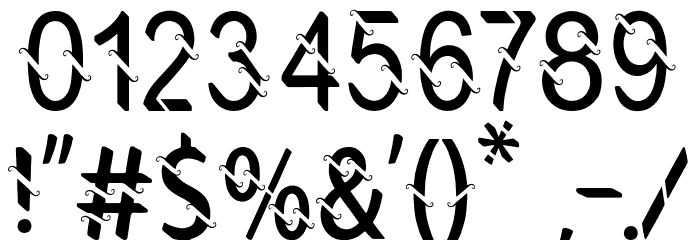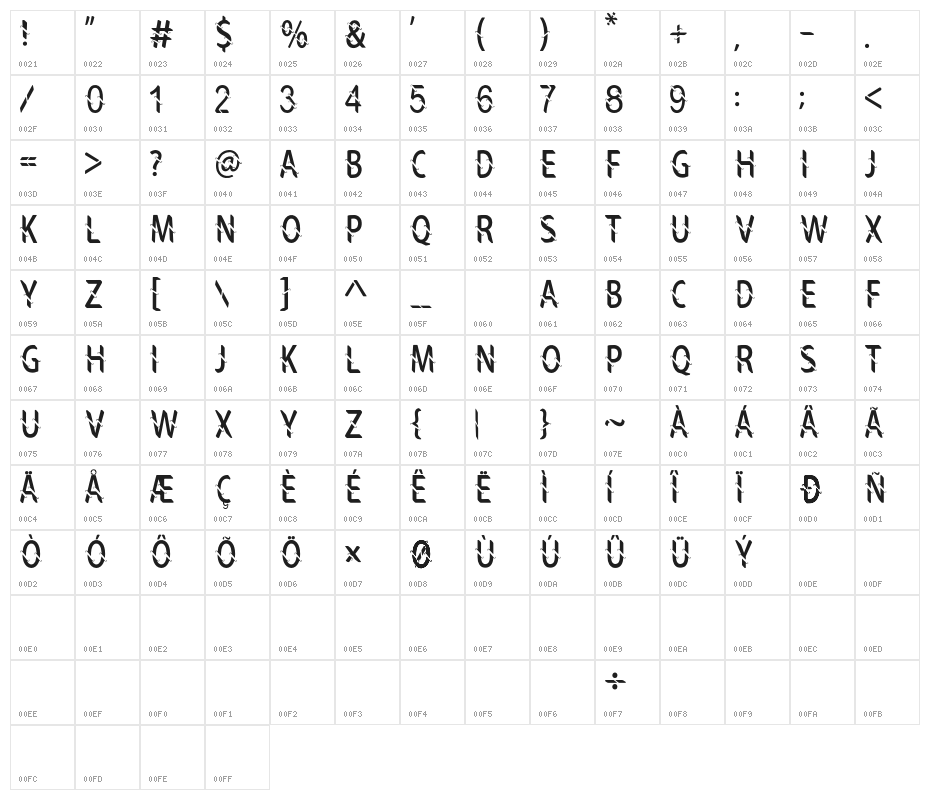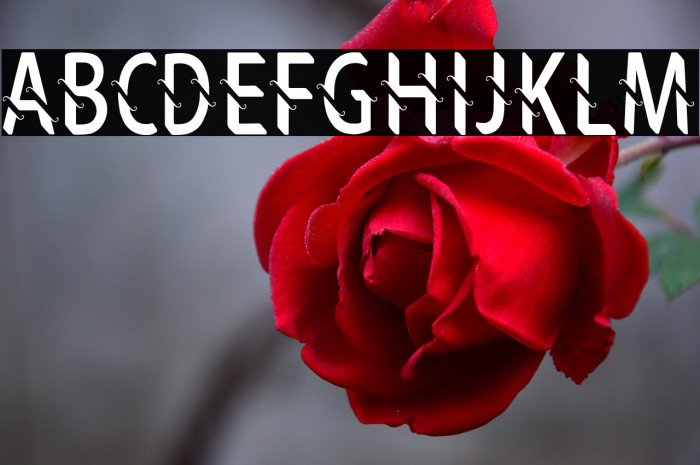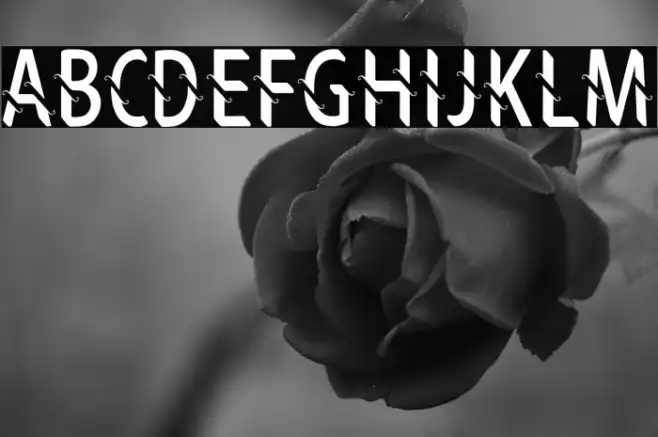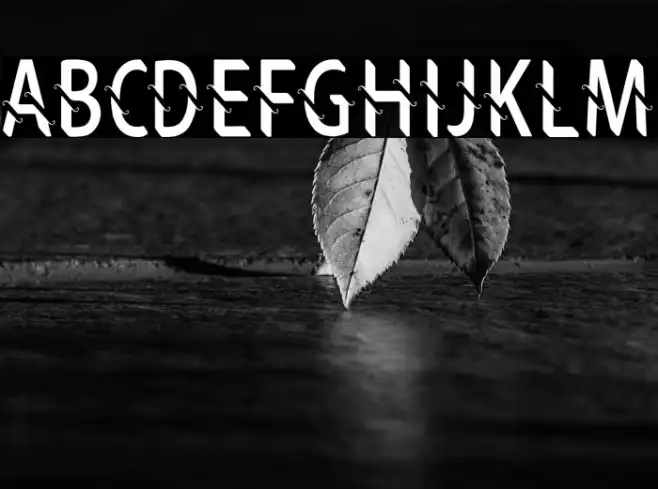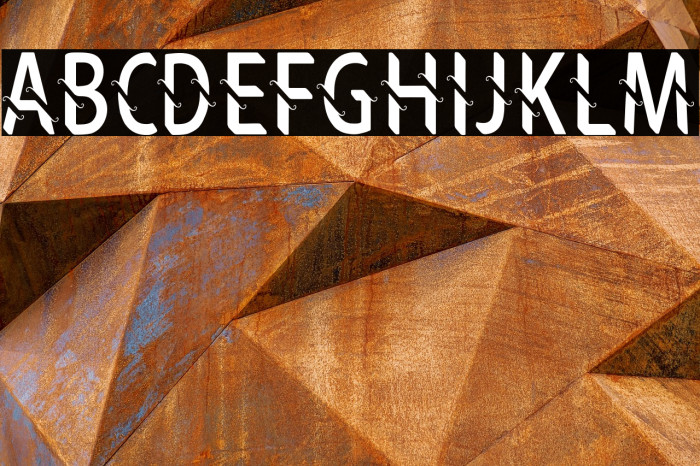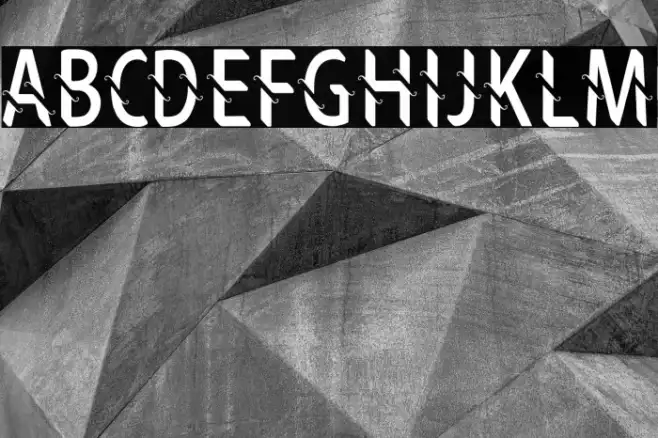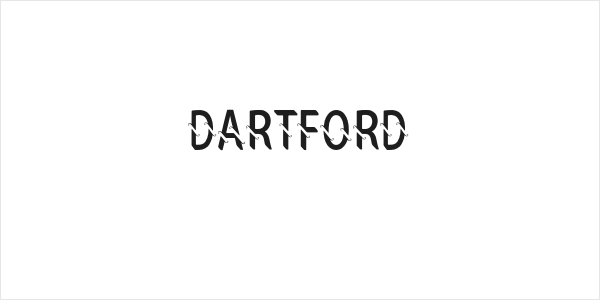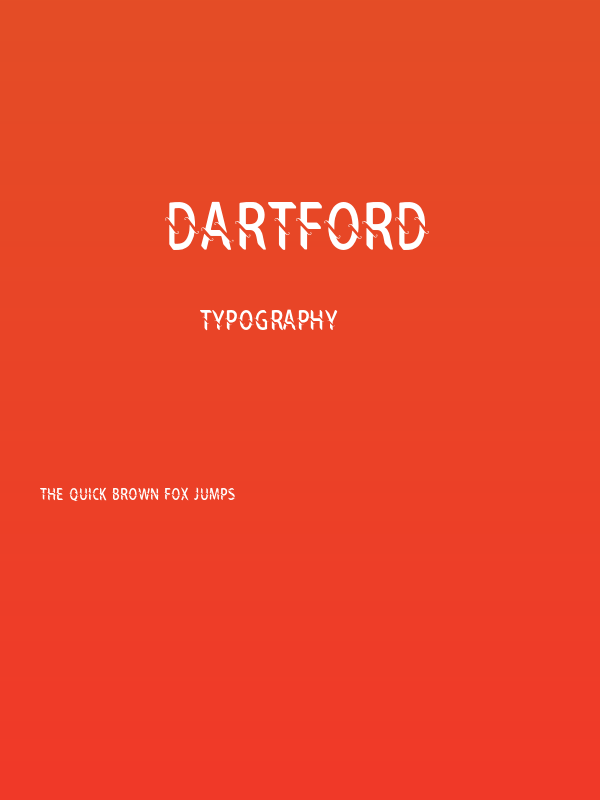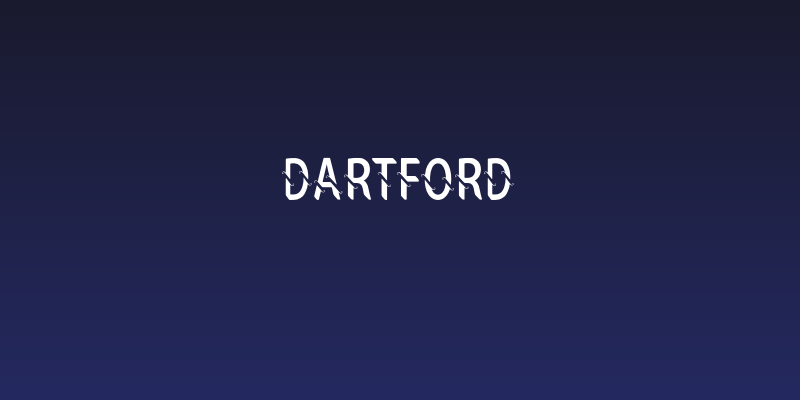
DARTFORD Font
DARTFORD Description
This font features a unique and playful design with a decorative twist. Each character is adorned with a whimsical, swirling line that intersects through the middle, creating a dynamic and eye-catching effect. The letters are bold and geometric, offering a modern aesthetic with a touch of artistic flair. The uppercase and lowercase letters maintain a consistent style, ensuring readability while adding a creative element. Numbers and special characters are also included, each following the same distinctive design pattern. This font is ideal for projects that require a bold statement and a touch of creativity.
| Proposed Projects | Ideal for branding, posters, and creative design projects that require a bold and artistic touch. |